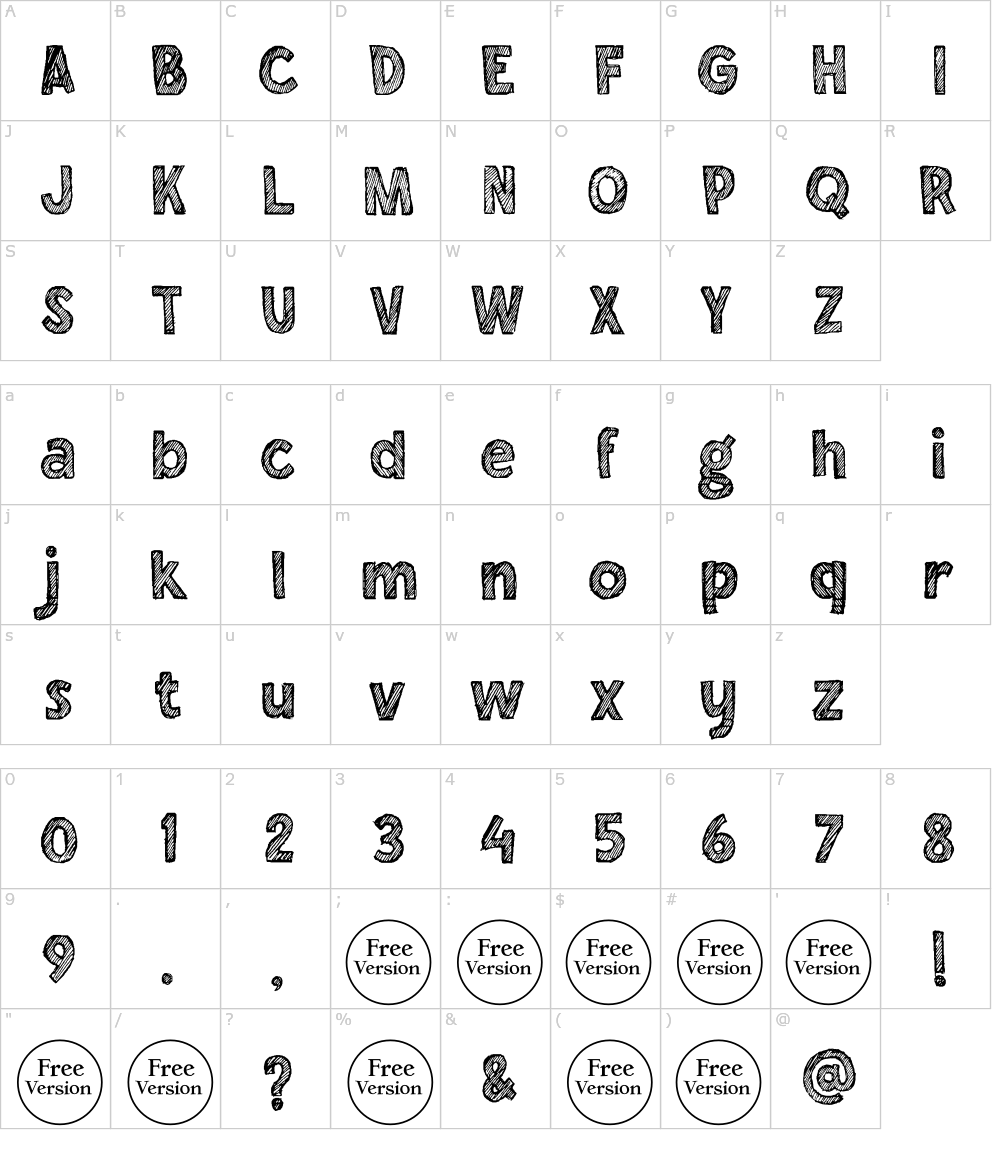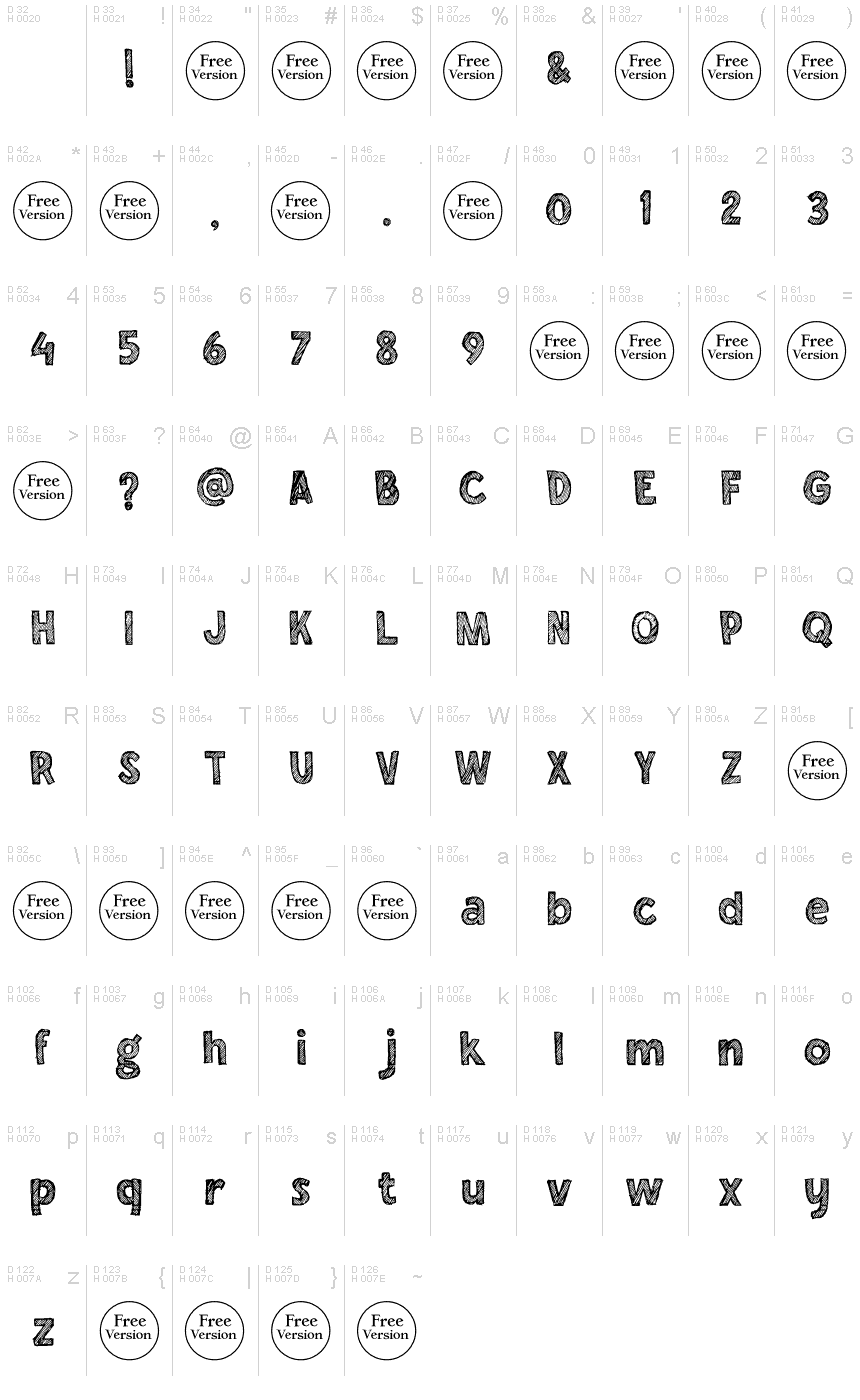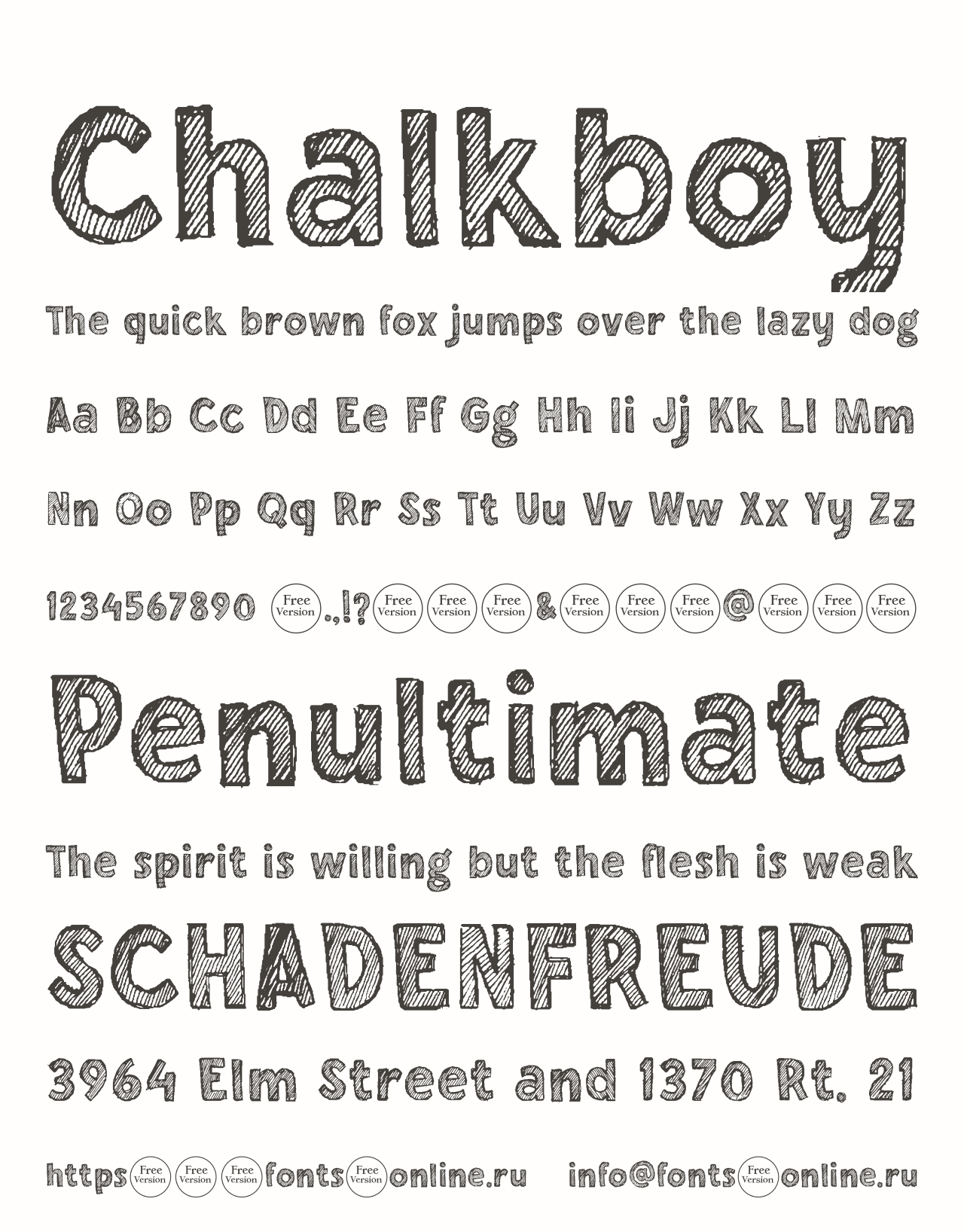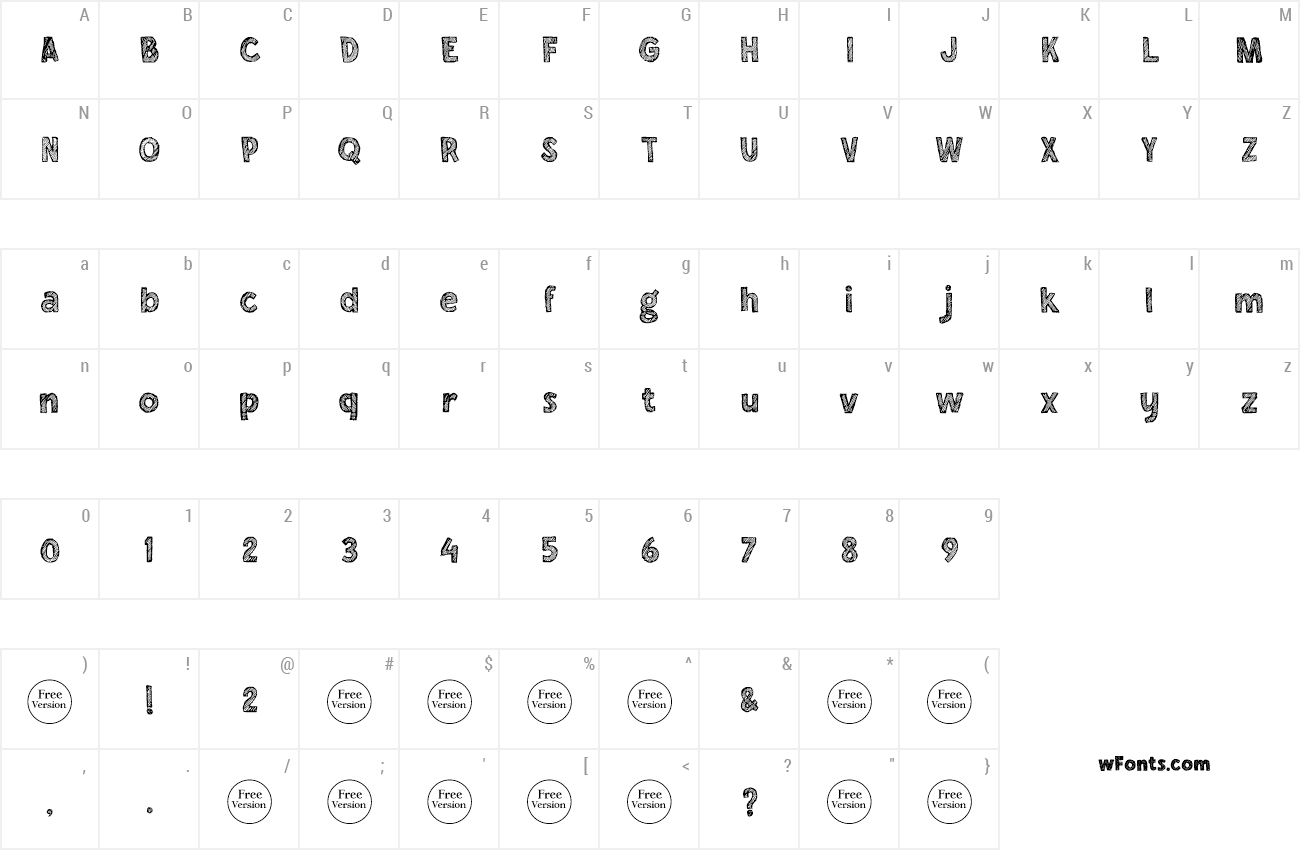
Chalk Boy Font . Whether you’re using it for crafting, digital designing,. Chalkboy is a fun and casual display font suited for kids , playground, or school theme. The typeface contains 2 files and supports 13 languages. Whether you’re using it for crafting, digital designing, presentations or greeting cards. Chalkboy is a fun and casual display font suited for kids , playground, or school theme. Chalkboy is a fun and casual display font suited for kids , playground, or school theme. Download free for personal use. Whether you’re using it for crafting, digital designing, presentations, or. Whether you’re using it for crafting, digital designing, presentations or greeting cards making, it’s perfect!
Chalkboy is a fun and casual display font suited for kids , playground, or school theme. Whether you’re using it for crafting, digital designing, presentations, or. Download free for personal use. Whether you’re using it for crafting, digital designing, presentations or greeting cards making, it’s perfect! Chalkboy is a fun and casual display font suited for kids , playground, or school theme. The typeface contains 2 files and supports 13 languages. Chalkboy is a fun and casual display font suited for kids , playground, or school theme. Whether you’re using it for crafting, digital designing,. Whether you’re using it for crafting, digital designing, presentations or greeting cards.
Chalk Boy Font Chalkboy is a fun and casual display font suited for kids , playground, or school theme. Whether you’re using it for crafting, digital designing, presentations or greeting cards making, it’s perfect! Chalkboy is a fun and casual display font suited for kids , playground, or school theme. Whether you’re using it for crafting, digital designing,. Whether you’re using it for crafting, digital designing, presentations, or. The typeface contains 2 files and supports 13 languages. Chalkboy is a fun and casual display font suited for kids , playground, or school theme. Whether you’re using it for crafting, digital designing, presentations or greeting cards. Chalkboy is a fun and casual display font suited for kids , playground, or school theme. Download free for personal use.
Chalkboy Font by TypeFactory · Creative Fabrica Chalk Boy Font The typeface contains 2 files and supports 13 languages. Whether you’re using it for crafting, digital designing, presentations or greeting cards making, it’s perfect! Chalkboy is a fun and casual display font suited for kids , playground, or school theme. Whether you’re using it for crafting, digital designing, presentations, or. Download free for personal use. Whether you’re using it for. Chalk Boy Font.
Chalkboy Font · 1001 Fonts Chalk Boy Font Whether you’re using it for crafting, digital designing, presentations or greeting cards. Whether you’re using it for crafting, digital designing,. Chalkboy is a fun and casual display font suited for kids , playground, or school theme. The typeface contains 2 files and supports 13 languages. Whether you’re using it for crafting, digital designing, presentations, or. Chalkboy is a fun and. Chalk Boy Font.
Chalky Bro Chalk Font Free Download Creativetacos Chalk Boy Font Chalkboy is a fun and casual display font suited for kids , playground, or school theme. Download free for personal use. Whether you’re using it for crafting, digital designing, presentations or greeting cards. Whether you’re using it for crafting, digital designing, presentations or greeting cards making, it’s perfect! Whether you’re using it for crafting, digital designing,. The typeface contains 2. Chalk Boy Font.
Chalk font and alphabet bold typeface letter Vector Image Chalk Boy Font Whether you’re using it for crafting, digital designing, presentations or greeting cards. Download free for personal use. Whether you’re using it for crafting, digital designing, presentations or greeting cards making, it’s perfect! Whether you’re using it for crafting, digital designing,. The typeface contains 2 files and supports 13 languages. Whether you’re using it for crafting, digital designing, presentations, or. Chalkboy. Chalk Boy Font.
Chalkboy Font typefactory FontSpace Chalk Boy Font Chalkboy is a fun and casual display font suited for kids , playground, or school theme. Download free for personal use. The typeface contains 2 files and supports 13 languages. Chalkboy is a fun and casual display font suited for kids , playground, or school theme. Chalkboy is a fun and casual display font suited for kids , playground, or. Chalk Boy Font.
30 Best Chalk Fonts To Enhance Your Design 2024 Templatefor Chalk Boy Font Whether you’re using it for crafting, digital designing, presentations or greeting cards. Chalkboy is a fun and casual display font suited for kids , playground, or school theme. Chalkboy is a fun and casual display font suited for kids , playground, or school theme. Whether you’re using it for crafting, digital designing, presentations, or. Whether you’re using it for crafting,. Chalk Boy Font.
Hand drawn chalk font Royalty Free Vector Image Chalk Boy Font The typeface contains 2 files and supports 13 languages. Whether you’re using it for crafting, digital designing, presentations or greeting cards. Whether you’re using it for crafting, digital designing,. Chalkboy is a fun and casual display font suited for kids , playground, or school theme. Download free for personal use. Chalkboy is a fun and casual display font suited for. Chalk Boy Font.
CHALKBOY (chalkboy.me on instagram) Calligraphy Letters, Typography Chalk Boy Font Whether you’re using it for crafting, digital designing,. Download free for personal use. Chalkboy is a fun and casual display font suited for kids , playground, or school theme. Chalkboy is a fun and casual display font suited for kids , playground, or school theme. Whether you’re using it for crafting, digital designing, presentations or greeting cards making, it’s perfect!. Chalk Boy Font.
26 Chalk Fonts in Canva, That'll Take You Back to School Goofy Designer Chalk Boy Font Chalkboy is a fun and casual display font suited for kids , playground, or school theme. Whether you’re using it for crafting, digital designing, presentations, or. Chalkboy is a fun and casual display font suited for kids , playground, or school theme. Whether you’re using it for crafting, digital designing, presentations or greeting cards. The typeface contains 2 files and. Chalk Boy Font.